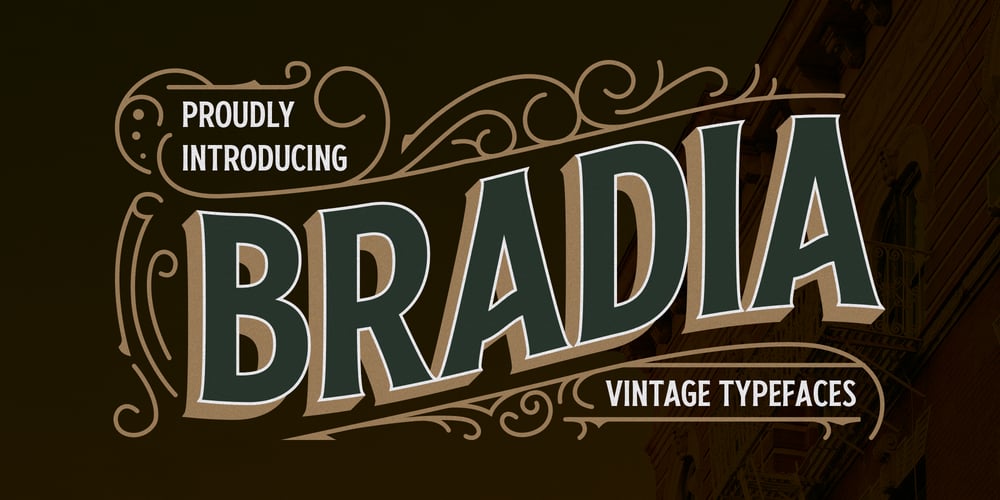
Bradia
Bradia font
Bradia Font Family was designed by Arwan Sutanto and published by Locomotype. Bradia contains 3 styles and family package options. Going back in time, Locomotype presents Bradia, a classic style font that brings out a vintage and old-fashioned feel.Available in three weights: Light, Regular and Bold. Discrectionary Ligatures feature is also included to enhance some letter pairs when applied to typographic designs.Bradia is a stylish and versatile typeface perfectly suitable for a wide range of applications, especially headlines and short lines of text, posters, packaging, logotype, in both print and digital media.